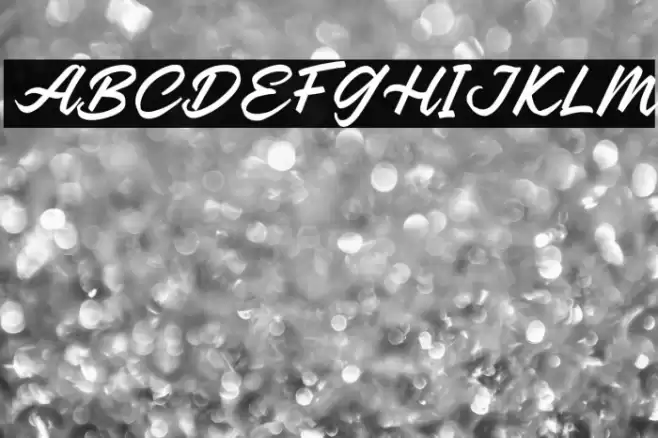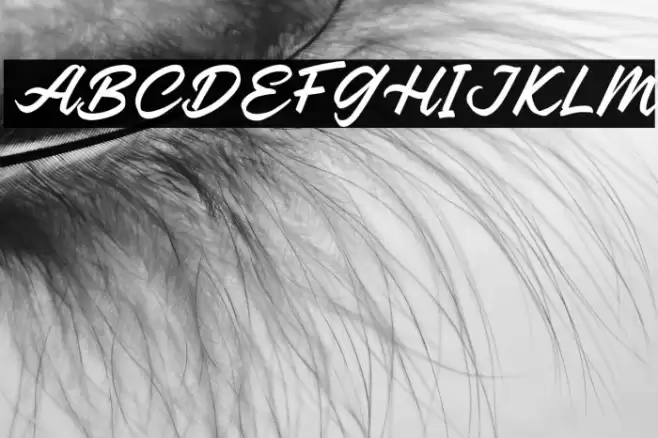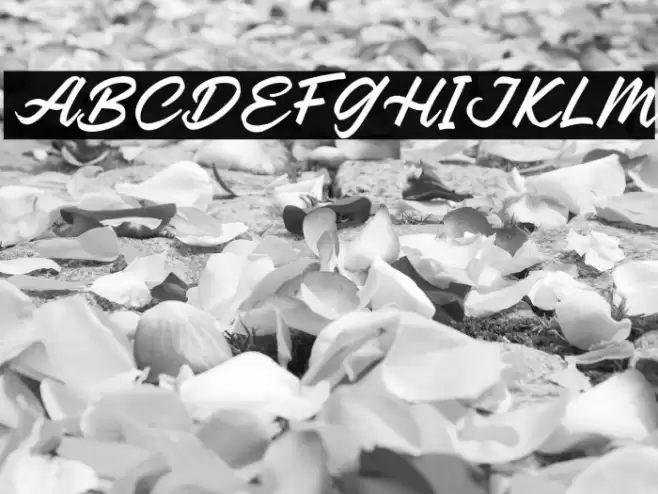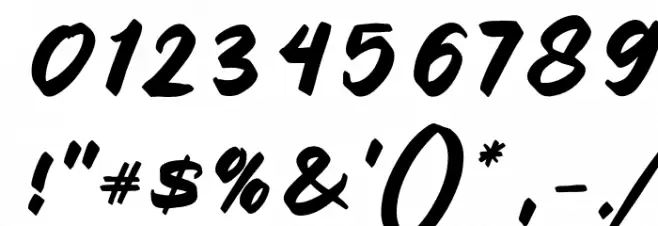
ReganDEMO-Regular Font
ReganDEMO-Regular Description
This font features a bold and dynamic script style, characterized by its flowing, cursive letterforms. The uppercase letters exhibit a sense of elegance and movement, while the lowercase letters maintain a consistent, fluid connection. The numerals are bold and easily readable, complementing the overall style. Special characters are designed with the same attention to detail, ensuring a cohesive look across all glyphs. The font's thick strokes and smooth curves make it stand out, offering a sense of sophistication and flair.
A bold, dynamic script font with flowing cursive letterforms from Uncategorized fonts.
- Font: ReganDEMO-Regular
- Proposed Projects: Ideal for branding, invitations, greeting cards, and any project requiring a touch of elegance and personality.
- Use Case: Logos, Headlines, Invitations